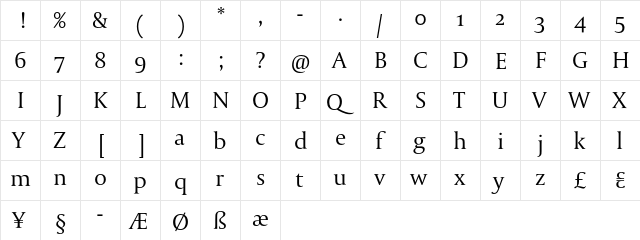
Capitolium LightRomanOsf Font Preview
Capitolium LightRomanOsf
Capitolium LightRomanOsf Font Details
Design Context for Capitolium Typeface
Capitolium offers clean, dependable letterforms without strong stylistic allegiance, making it a practical choice for designers who need flexibility. Its slender proportions lend an understated elegance to any composition.
Pro Tip: Pair Capitolium with a font of contrasting weight or personality to build a more expressive typographic hierarchy.